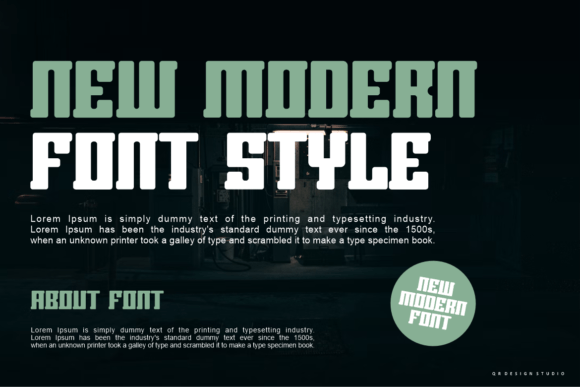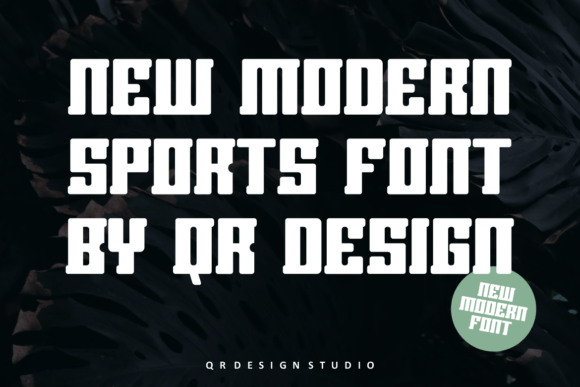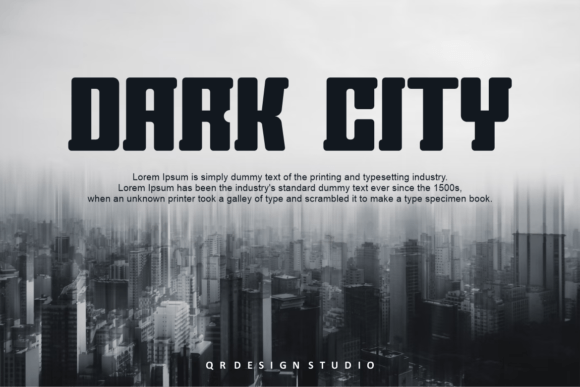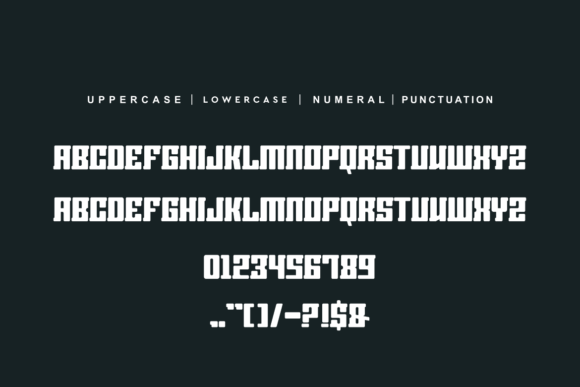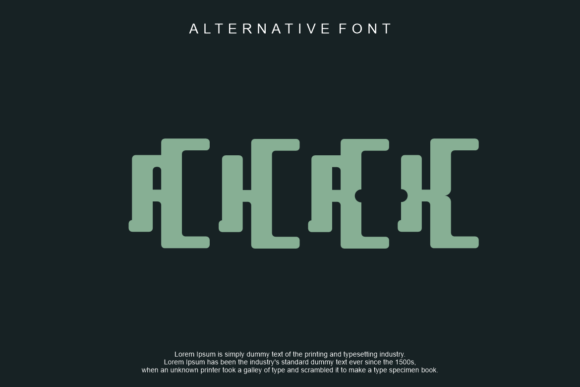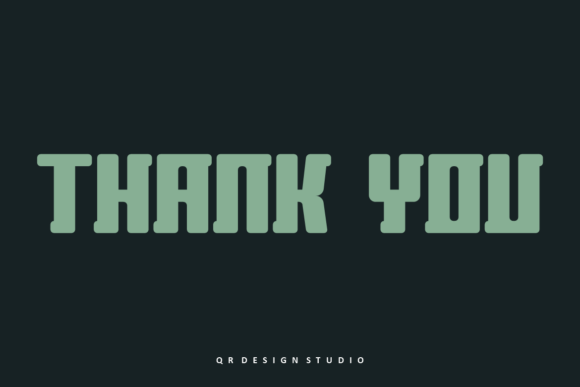
Introducing Groxy Angproak: The Ultimate Bold, Cool, and Modern Display Font
Are you tired of using the same old fonts for your design projects? Look no further! Groxy Angproak is here to revolutionize your creative endeavors with its bold, cool, and modern display font. This stunning font is perfect for designers, crafters, and anyone looking to add a touch of sophistication to their work.
What Makes Groxy Angproak Stand Out?
Groxy Angproak is not just another font; it’s an experience. Its unique blend of boldness and elegance makes it perfect for a wide range of projects, from branding and advertising to packaging and digital media. With Groxy Angproak, you can add a touch of personality to your designs and make them stand out from the crowd.
Key Features of Groxy Angproak
- Bold and Eye-Catching: Groxy Angproak is designed to grab attention. Its bold strokes and unique lettering make it perfect for headlines, titles, and any other text that needs to stand out.
- Cool and Modern: This font is not just bold; it’s also incredibly cool and modern. Its sleek lines and contemporary design make it perfect for projects that require a fresh and modern look.
- Highly Versatile: Groxy Angproak is incredibly versatile. It can be used for a wide range of projects, from digital media to print materials, and everything in between.
- Easily Readable: Despite its boldness, Groxy Angproak is incredibly easy to read. This makes it perfect for projects that require a font that’s both eye-catching and legible.
How to Use Groxy Angproak in Your Designs
Using Groxy Angproak in your designs is incredibly easy. Here are a few tips to get you started:
- Pair it with Other Fonts: Groxy Angproak can be paired with a wide range of fonts to create stunning contrast and visual interest.
- Use it for Headlines: Groxy Angproak is perfect for headlines and titles. Use it to grab attention and draw the reader in.
- Experiment with Colors: Groxy Angproak looks great in a wide range of colors. Experiment with different colors to find the perfect look for your project.
Why Designers and Crafters Love Groxy Angproak
Groxy Angproak has quickly become a favorite among designers and crafters. Here are a few reasons why:
- Unique and Creative: Groxy Angproak is a unique and creative font that allows designers and crafters to add a touch of personality to their work.
- Easily Customizable: Groxy Angproak is incredibly easy to customize. Designers and crafters can adjust the font to fit their specific needs and style.
- High-Quality: Groxy Angproak is a high-quality font that’s designed to deliver exceptional results. It’s perfect for projects that require a professional and polished look.
Groxy Angproak is a bold, cool, and modern display font that’s perfect for designers, crafters, and anyone looking to add a touch of sophistication to their work. With its unique blend of boldness and elegance, Groxy Angproak is sure to revolutionize your creative endeavors. So why wait? Add Groxy Angproak to your creative design ideas and experience the results for yourself!
Whether you’re working on a branding project, creating a stunning poster, or simply looking for a font that will make your work stand out, Groxy Angproak is the perfect choice. Its versatility, readability, and unique style make it an essential tool for any designer or crafter.